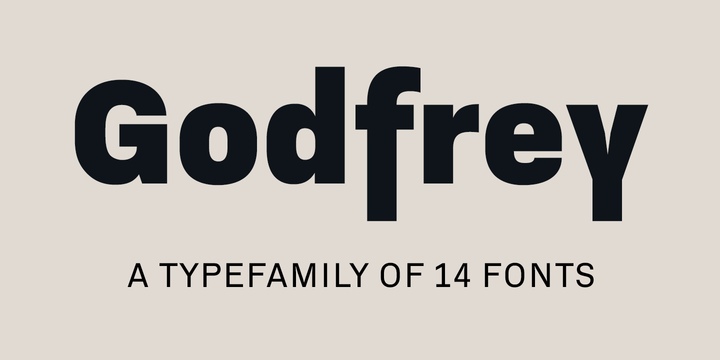
Godfrey Font
Godfrey Font is perfect for prestigious brand identities, distinguished law firm communications, executive corporate presentations, luxury hospitality branding, traditional gentleman's club materials, upscale financial services marketing, heritage institution signage, and dignified professional documentation.
What makes Godfrey Font exciting is its noble embodiment of distinguished authority that captures the timeless elegance of aristocratic tradition through masterfully crafted letterforms that command immediate respect. The font features refined proportions with classical details that evoke the dignity and sophistication found in established institutions and venerable traditions. Its distinguished character and prestigious appearance make it perfect for organizations that need to communicate heritage, respectability, and the kind of institutional gravitas that inspires confidence in generations of excellence and unwavering professional standards.
Godfrey Font family includes various distinguished weights such as Light, Regular, Medium, and Bold variations, often featuring classical stylistic alternates and aristocratic decorative elements. The family may include traditional symbols, heritage ornaments, and noble ligatures that enhance the font's prestigious aesthetic, providing designers with comprehensive options for creating authoritative typographic compositions that honor classical traditions while maintaining contemporary relevance.
This dignified typeface has gained recognition among established institutions and prestigious brands seeking authentic traditional typography solutions. Godfrey Font Free Download provides an excellent opportunity to experience this distinguished font before investment. The font's character set includes prestigious symbols and heritage-inspired glyphs that work perfectly for institutional and professional service industry applications. Whether you're designing for established law firms, private banking institutions, or luxury heritage brands, Godfrey Font delivers the distinguished authority your project requires. Its versatile nature makes it suitable for various prestigious applications including exclusive clubs, traditional universities, established consulting firms, and heritage-focused lifestyle brands, ensuring your typography choices communicate institutional credibility and time-honored excellence while creating memorable brand experiences that reflect the dignity and respectability that define truly distinguished organizations through its authentically noble and institutionally authoritative visual character.